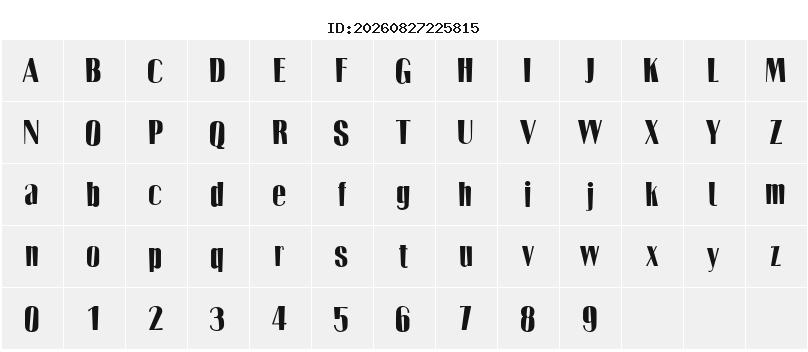
• Font Name: Two Tones
• Full Font Name: Two Tones
About Two Tones.ttf
Two Tones.ttf is a modern, elegant sans-serif font designed for ultimate readability and visual harmony. Perfect for branding, headlines, web design, and print materials.